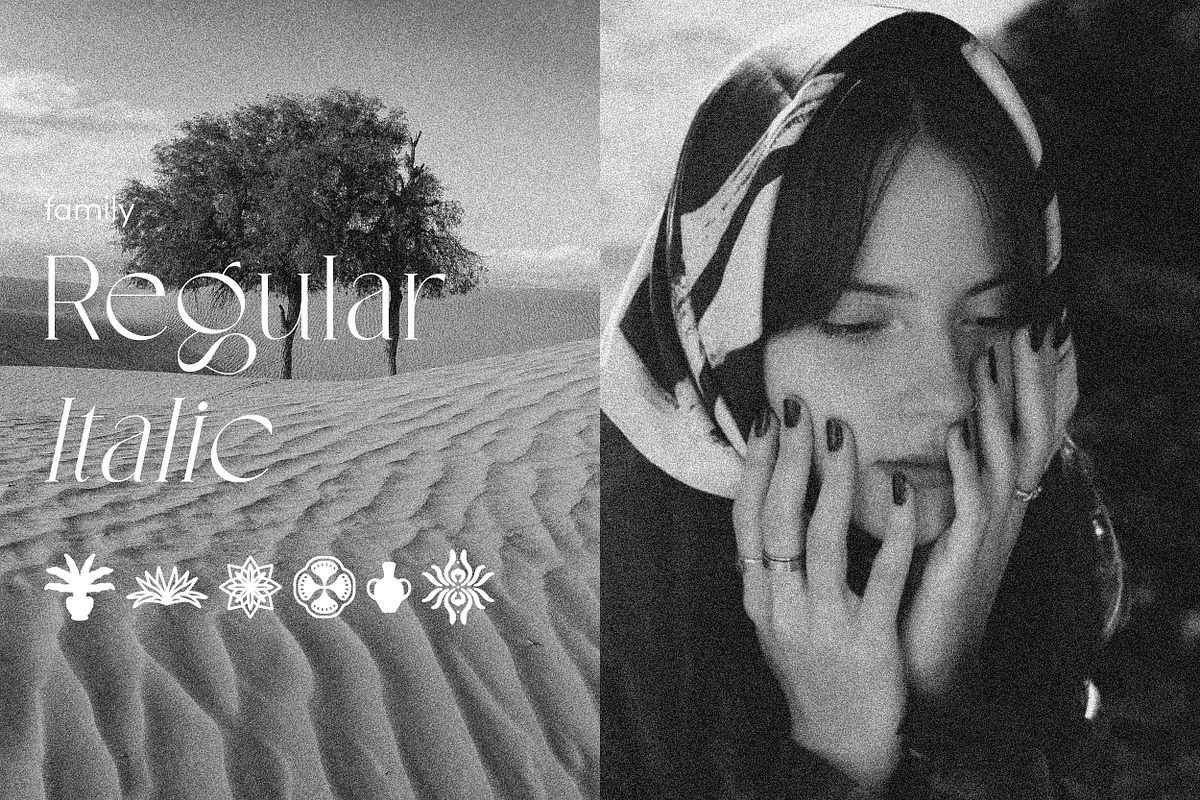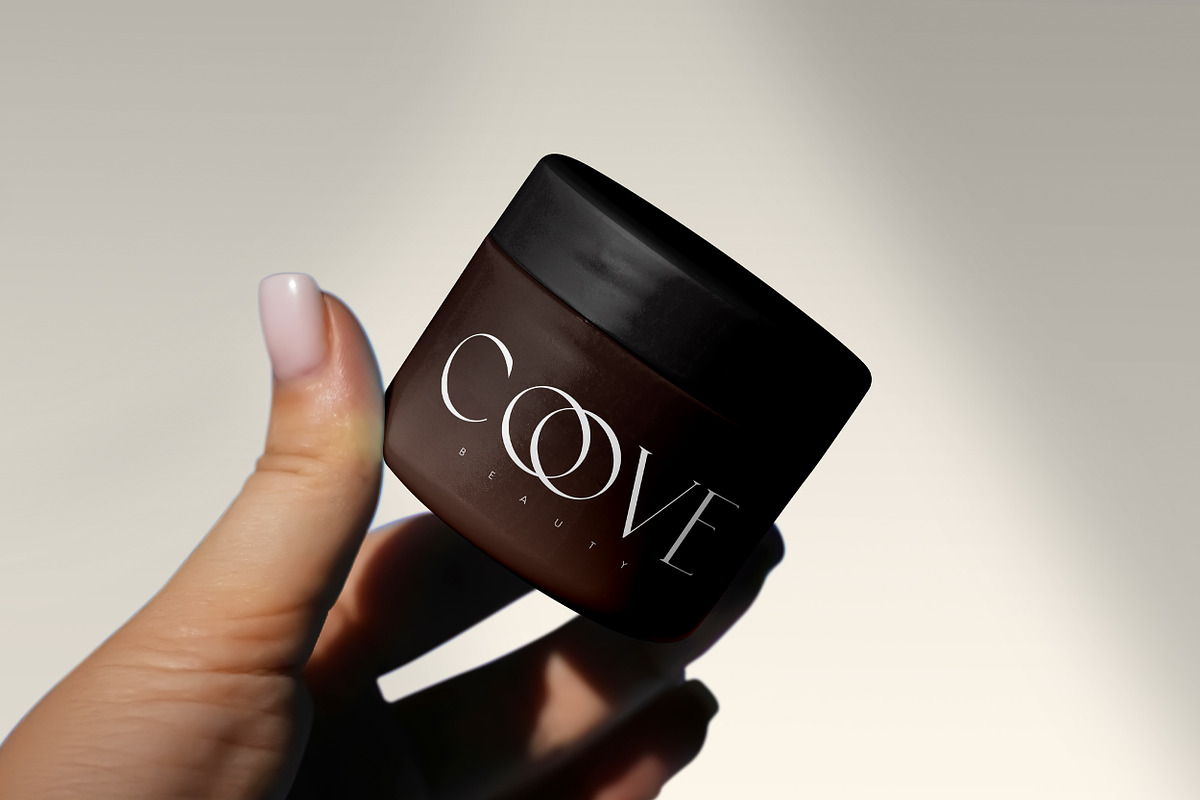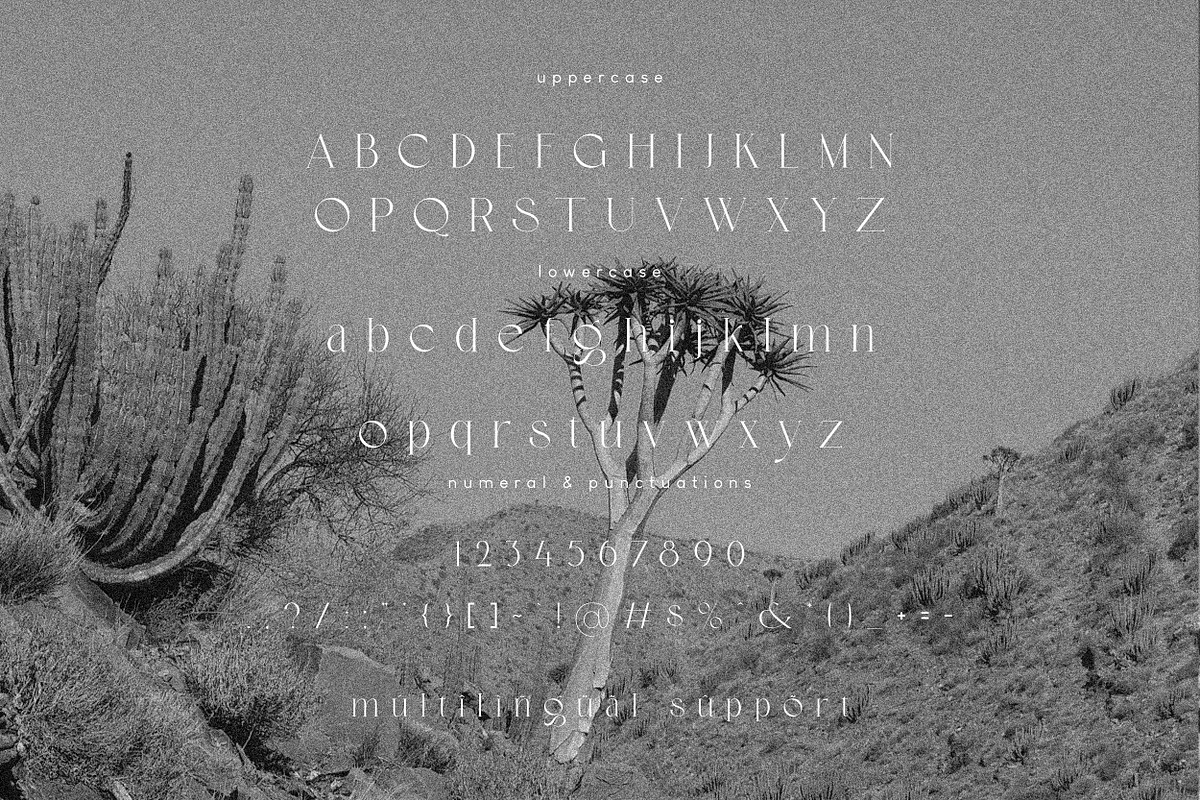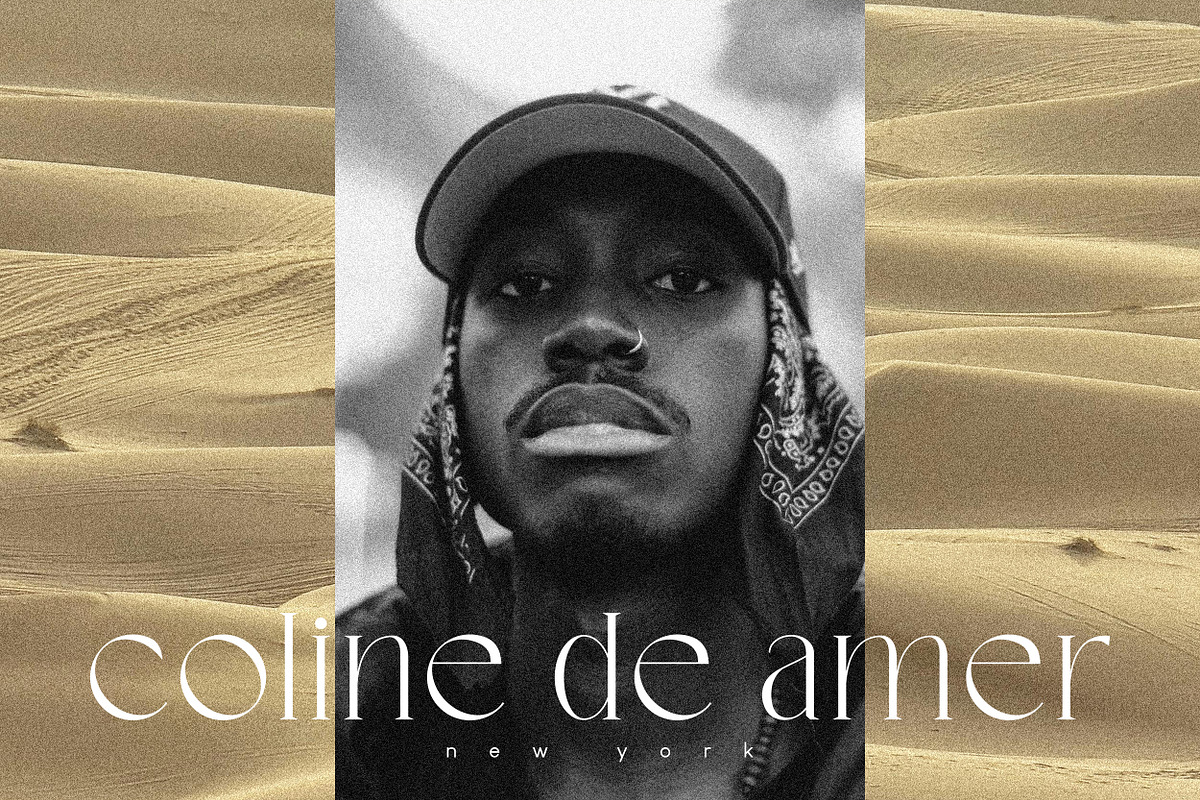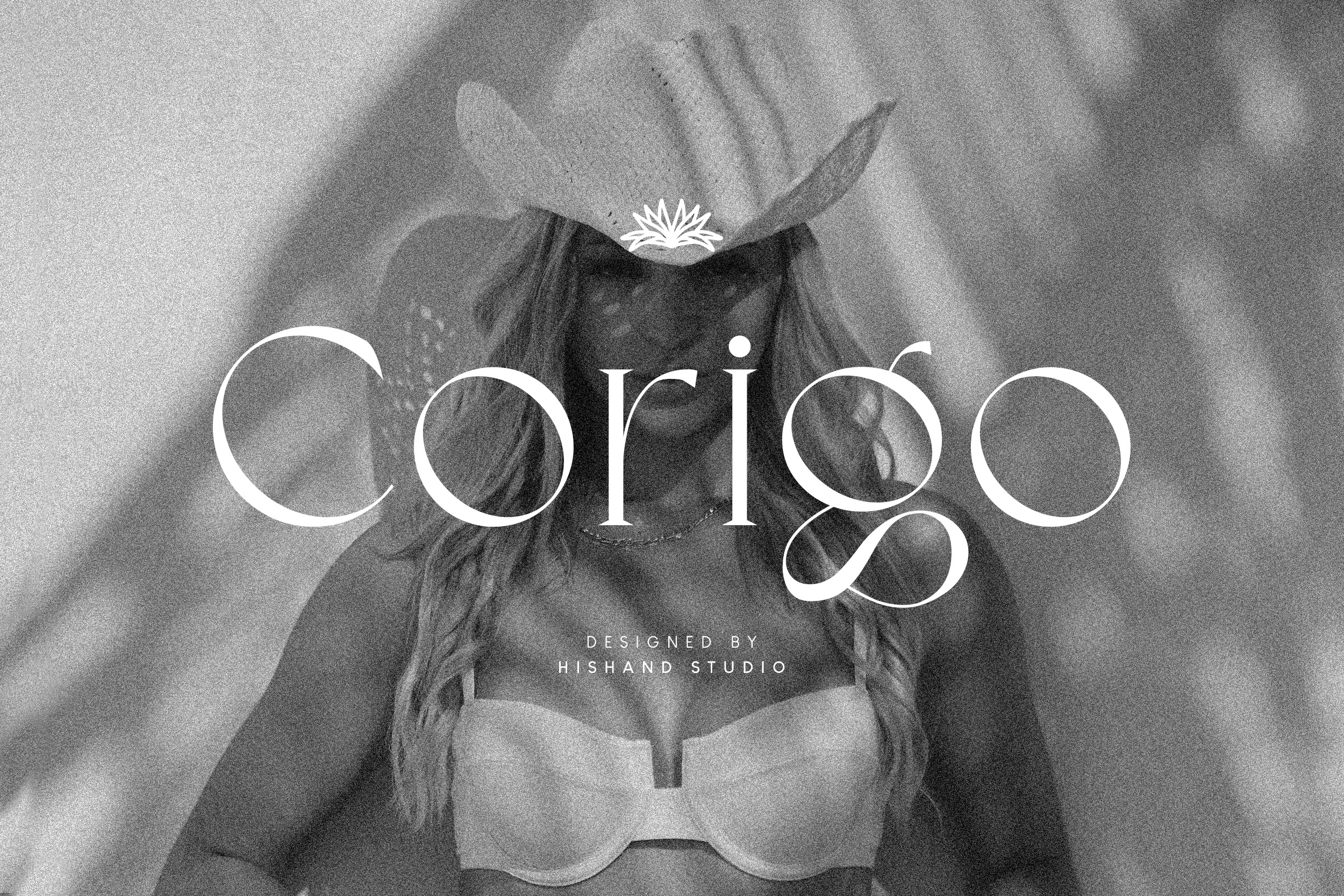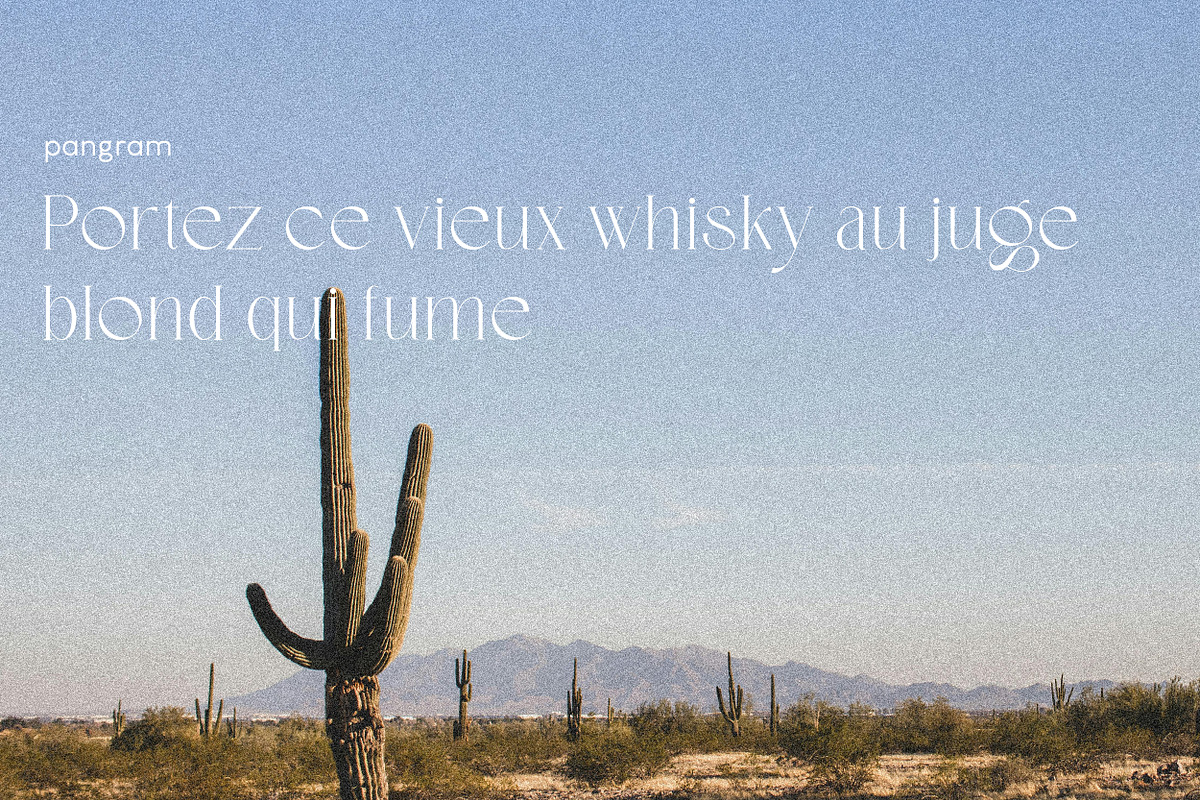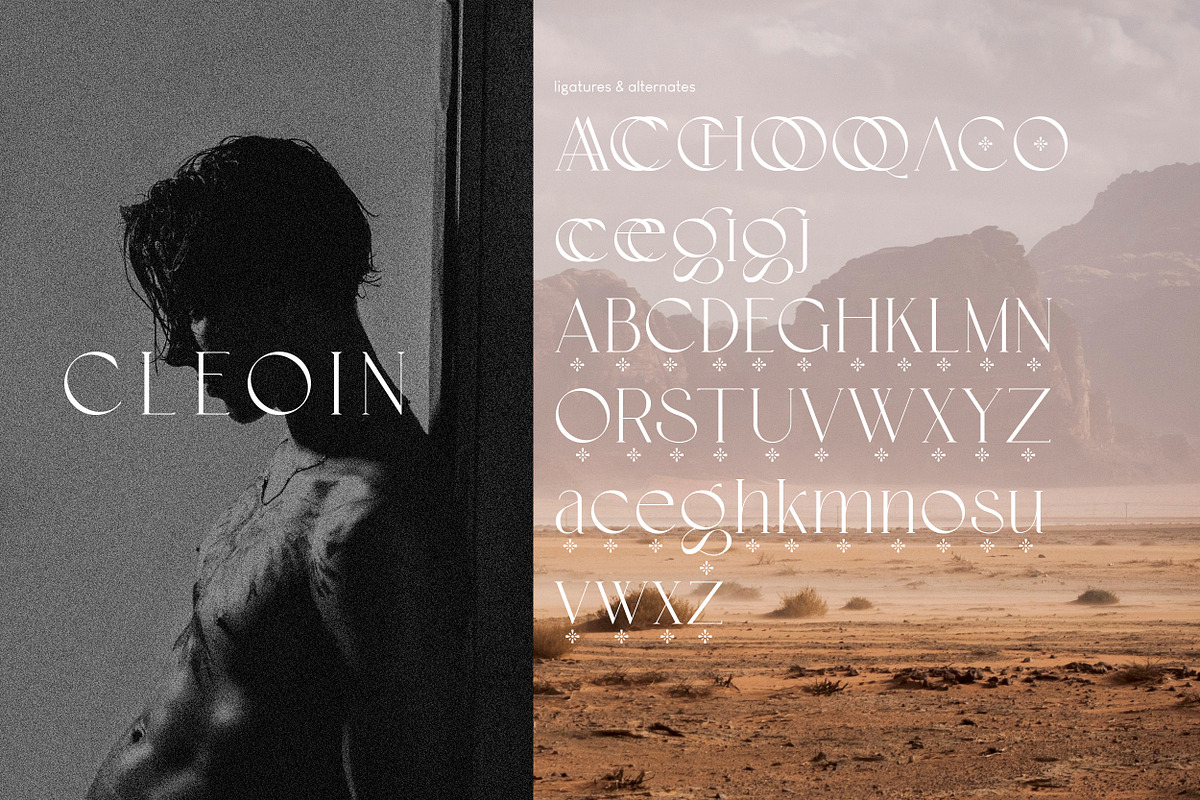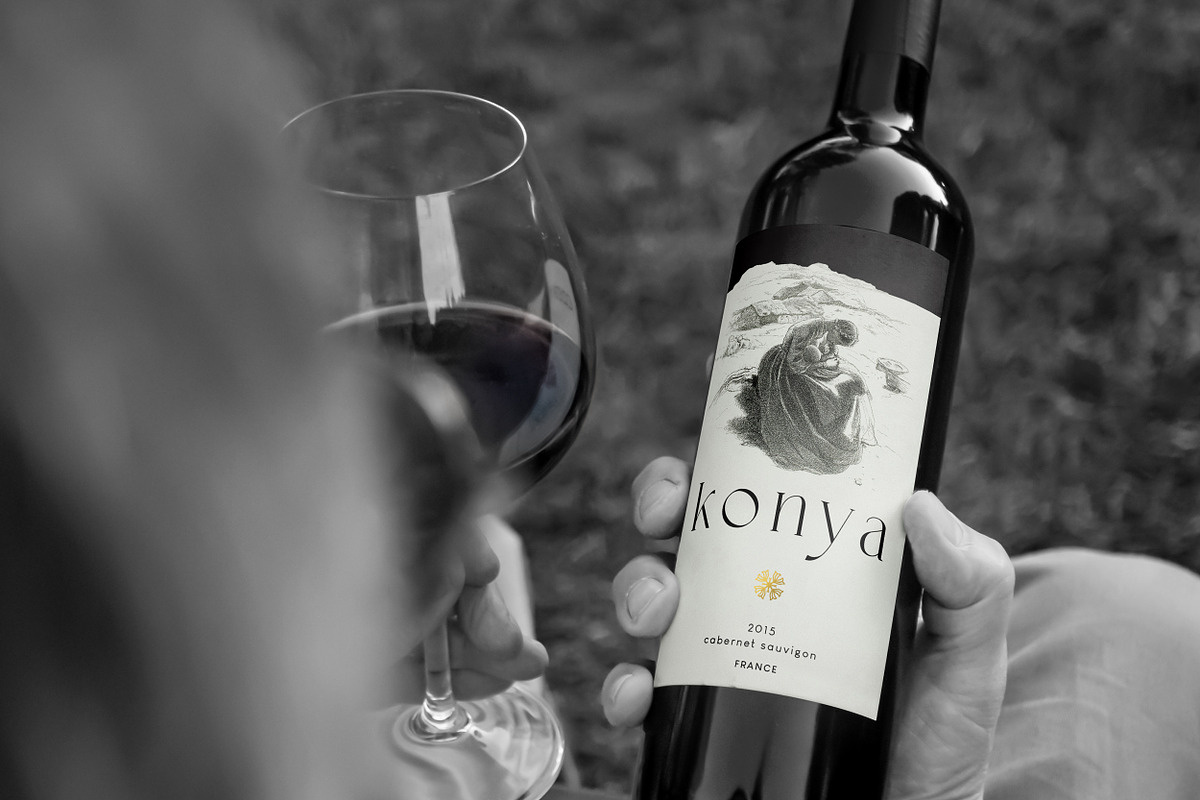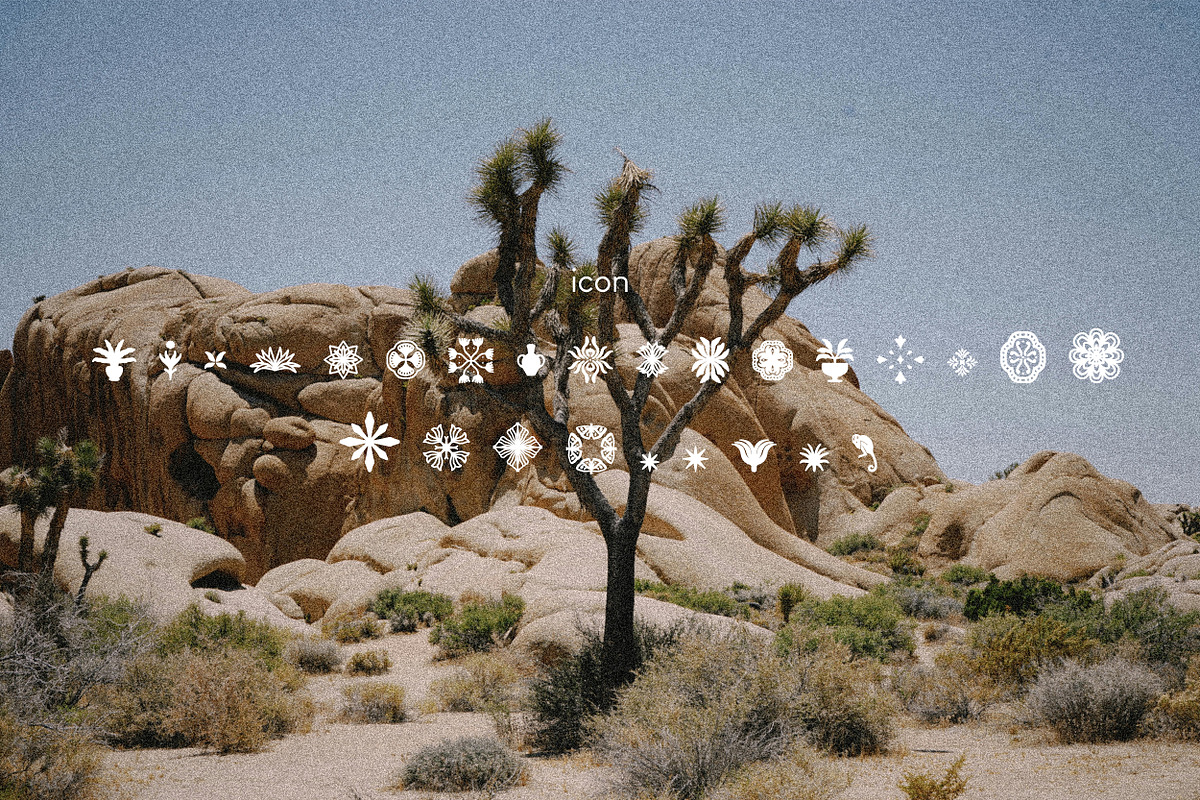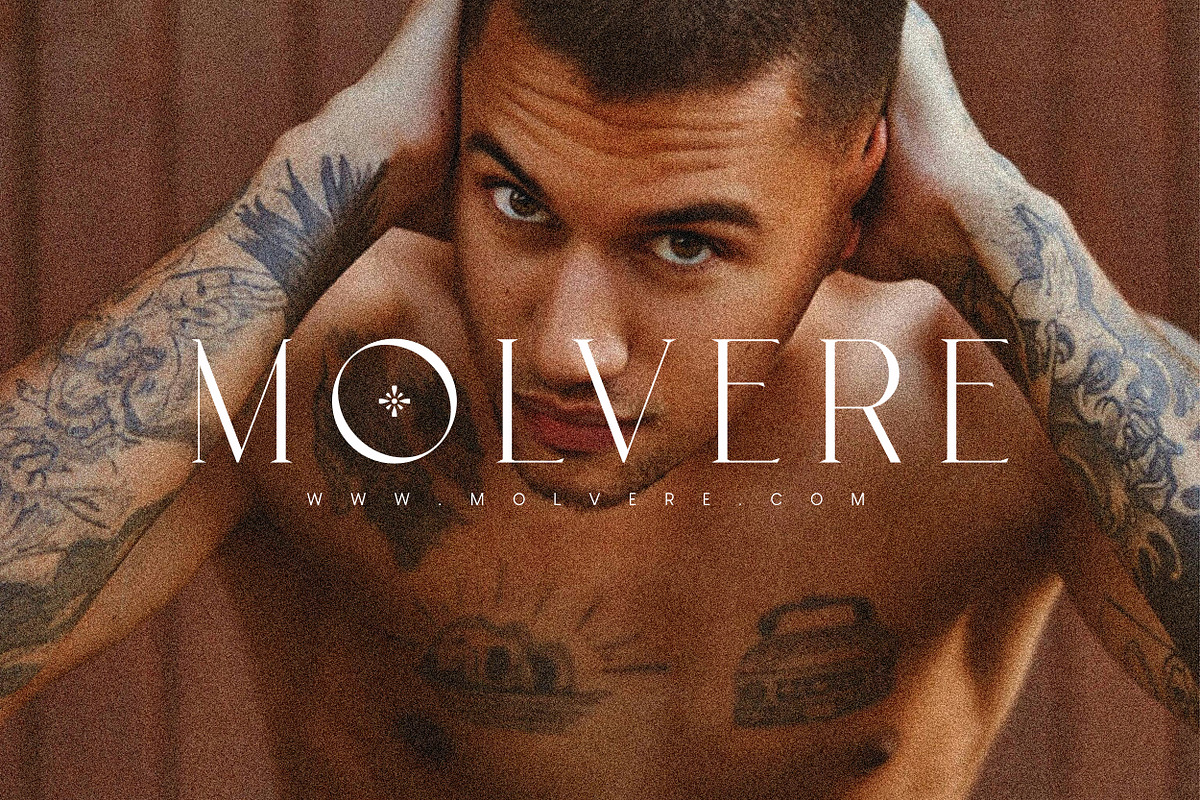
Corigo Elegant Font
Corigo is an elegant serif font crafted to bring sophistication and style to your designs. With its balanced proportions, refined strokes, and timeless charm, Corigo captures an aesthetic that feels both modern and classic. Each letterform is thoughtfully designed to create harmony and readability, making it versatile for a wide range of creative projects.
Perfect for branding, editorials, invitations, packaging, and luxury logos, Corigo adds a graceful presence that elevates any design. Its sleek details and aesthetic appeal make it a powerful choice for designers who want to communicate class, beauty, and professionalism with ease.
Whether used in headlines, body text, or stylish compositions, Corigo ensures your message stands out with elegance and clarity. Complete with
- alternates
- regular
- Italic
- icon
- kerning
- multilingual support